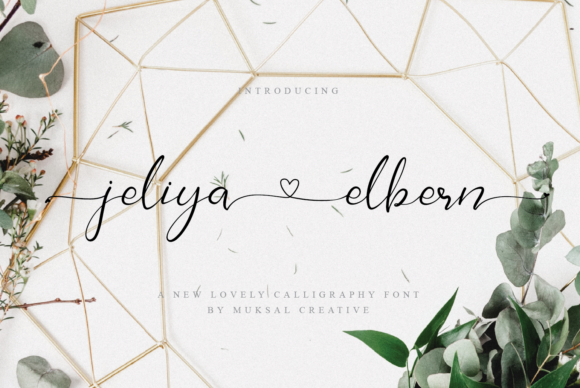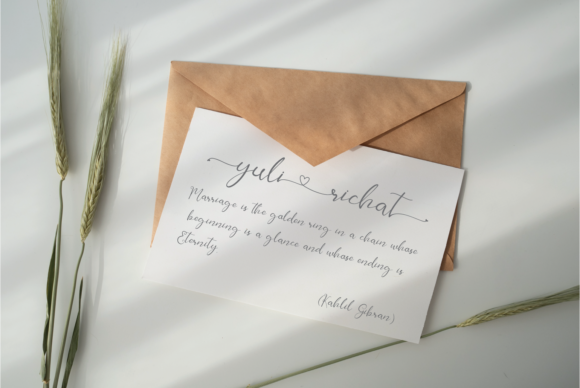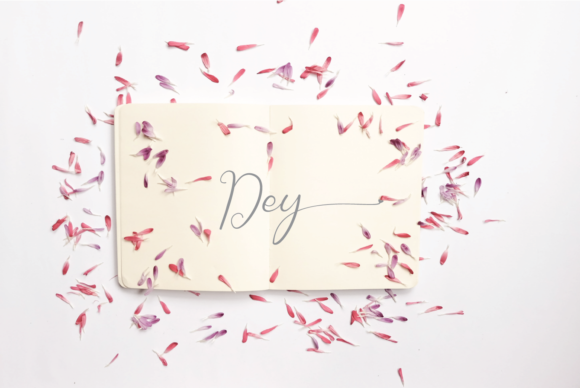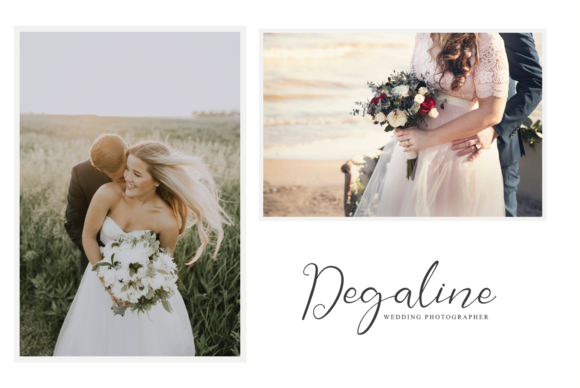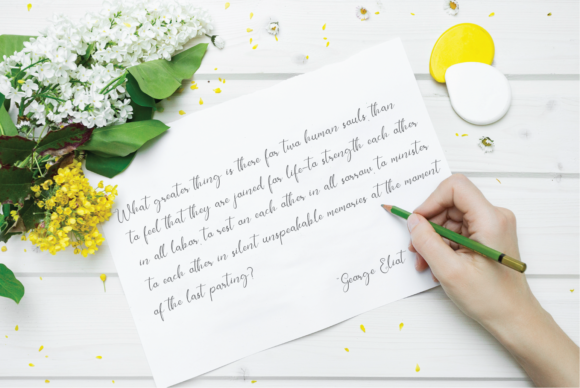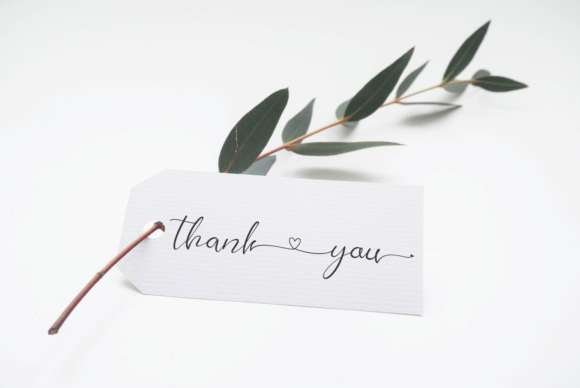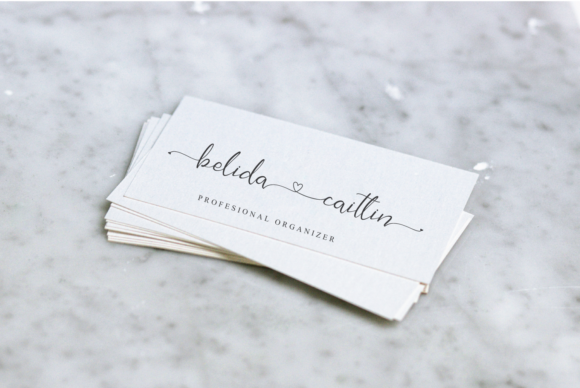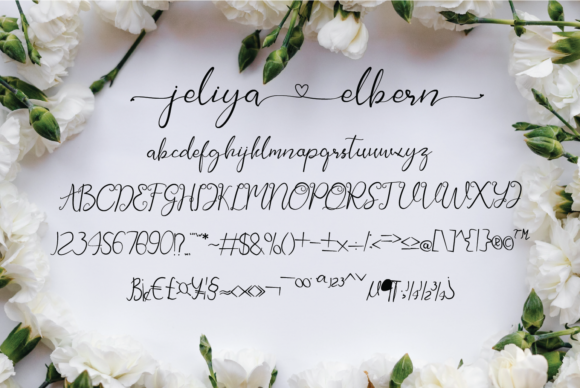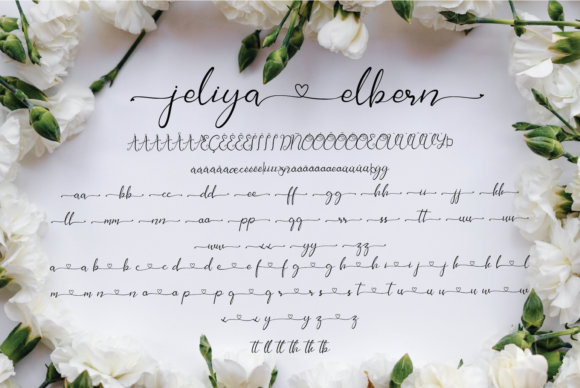
Jelia Elbern Font
About Jelia Elbern Font
Jelia Elbern is a cute and modern handwritten font with an incredibly friendly feel. Jelia Elbern is the perfect font for making original and outstanding designs.